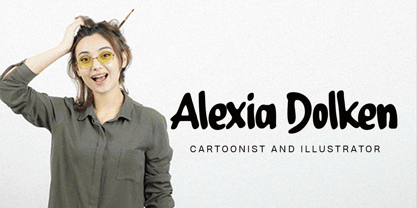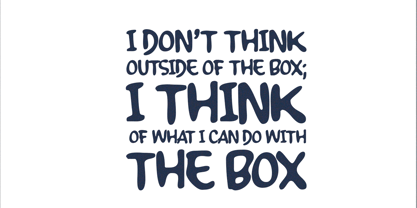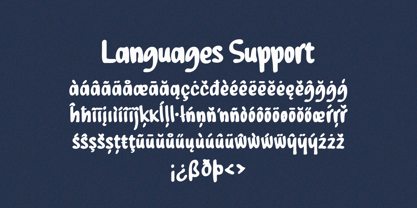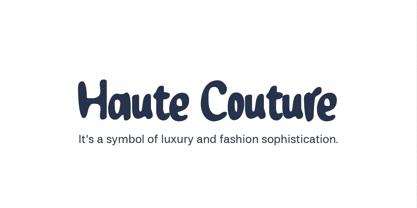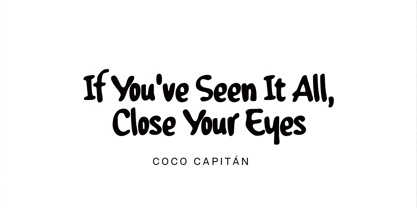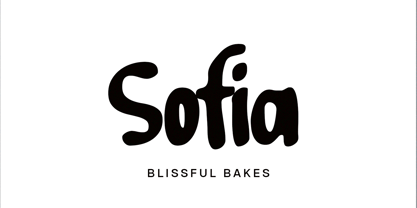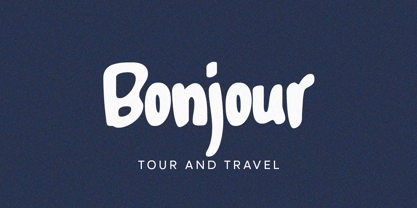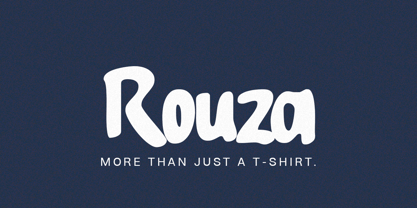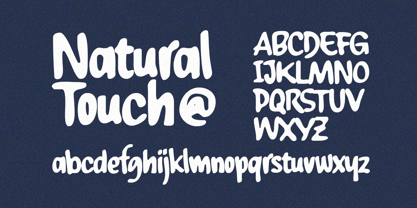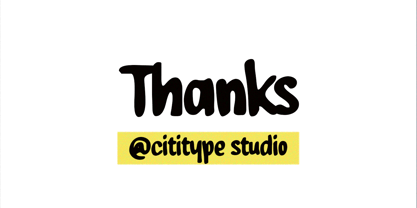
Chubo
by Cititype
The Chubo Font Family was designed by Muhammad Ridha Agusni, Siti Saribanon Nurjannah and published by Cititype. Chubo contains 1 styles. More about this family
The "Cubo" typeface presents a natural handwritten style with an upright and steady structure. Each letter maintains a balanced form with smooth curves, creating a friendly and approachable look. The consistent stroke weight enhances readability while preserving the organic feel of handwriting.
The font achieves a stable and neutral appearance, making it suitable for both casual and professional applications. The letter spacing is well-proportioned, ensuring clarity without losing its natural flow. Some refinements in character consistency could further enhance uniformity, making the typeface more cohesive.
Overall, "Cubo" embodies a natural yet structured handwritten aesthetic. With slight refinements in stroke consistency and spacing, it can become even more versatile for various design uses.
Designers: Muhammad Ridha Agusni, Siti Saribanon Nurjannah
Foundry: Cititype